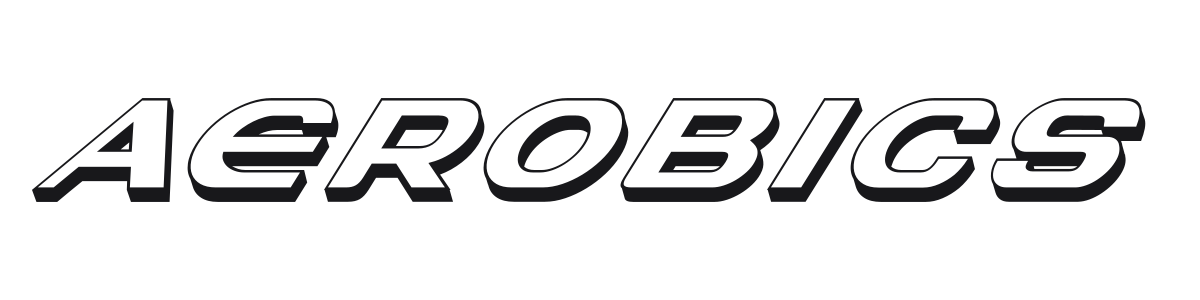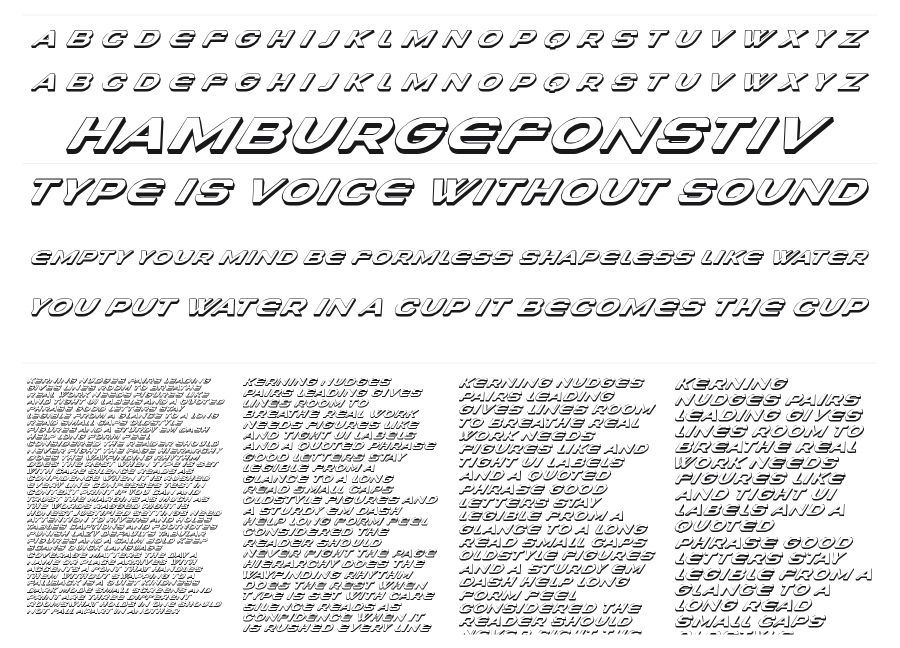
Aerobics
Aerobics is a bold italic display font with a layered 3D chrome-and-shadow effect straight out of 1980s sports culture. The heavy forward slant and metallic inline treatment give it an unmistakable high-energy attitude. Built for headlines, posters, and any project that needs to look fast.